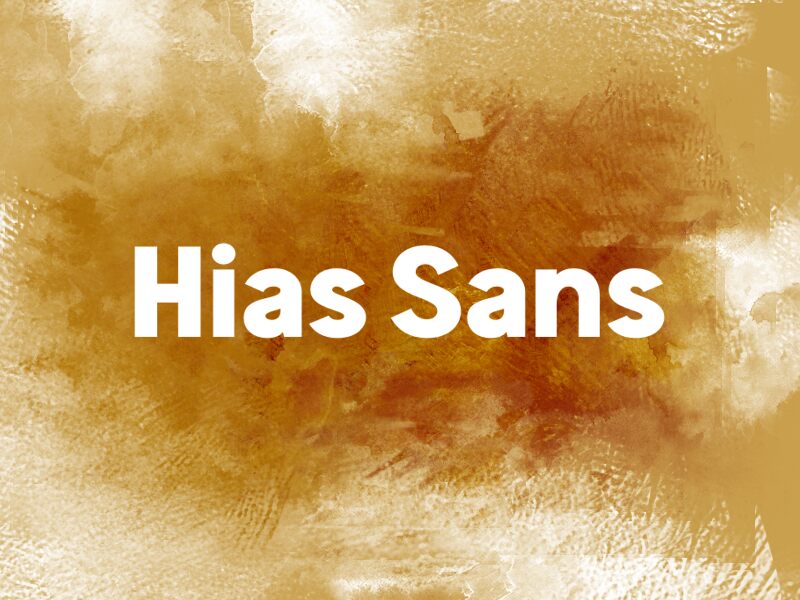
Hias Sans
Hias Sans font has a minimalistic tone applied naturally to accentuate contemporary applications. This free sans serif font is characterized by bold and sleek forms, a geometric influence found in every corner. And with its clean and versatile design, it can easily be added to multiple types of projects where clear presentations are key.
Hias Sans resembles some of the basics yet it brings its own charm, so the unusual can be presented within prints, ads, posters, banners, cards (business or invitations), articles and newspapers/ magazines), webpage designs or development applications. Still stuck? Use it for branding purposes like logos or even stationery design!